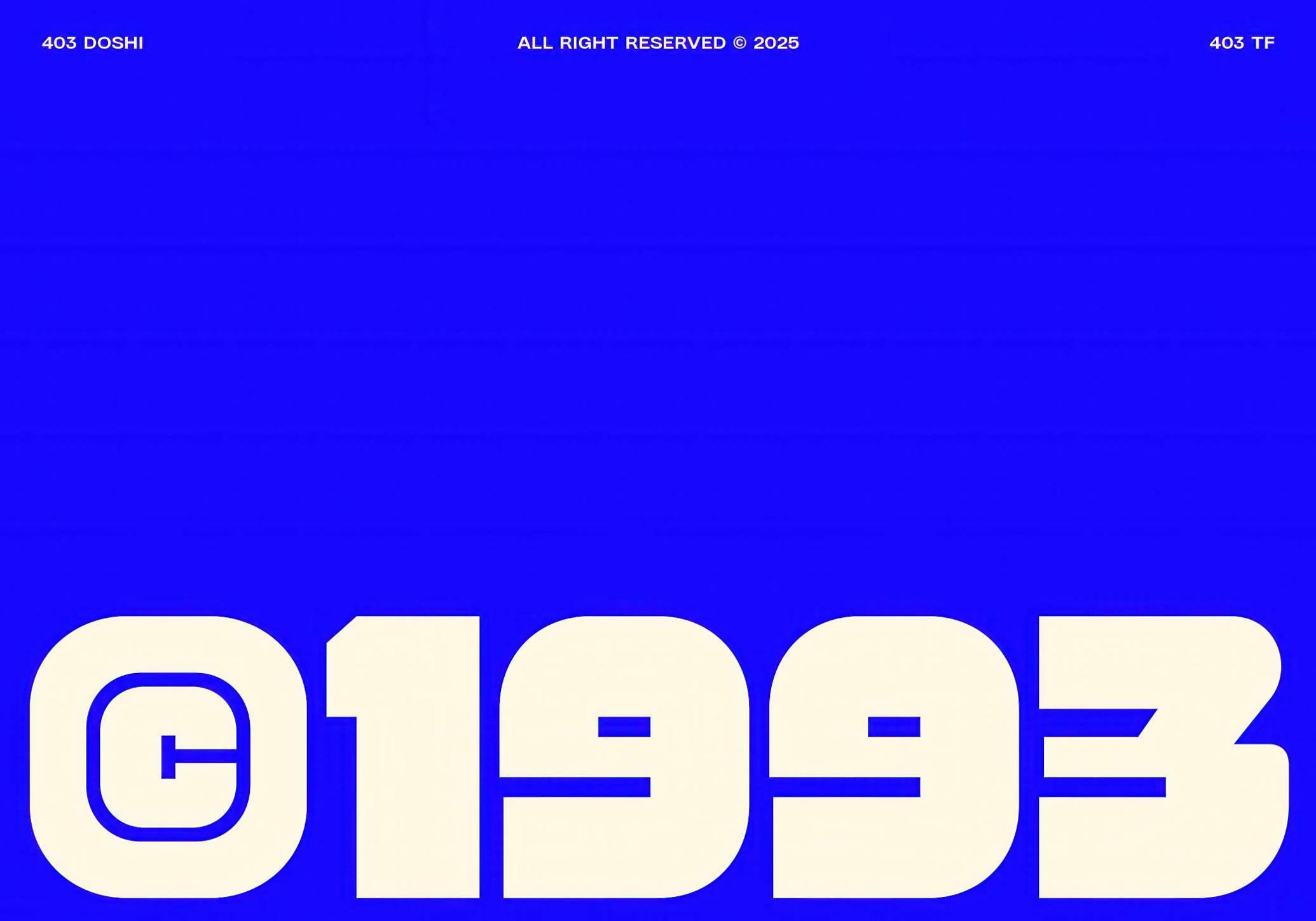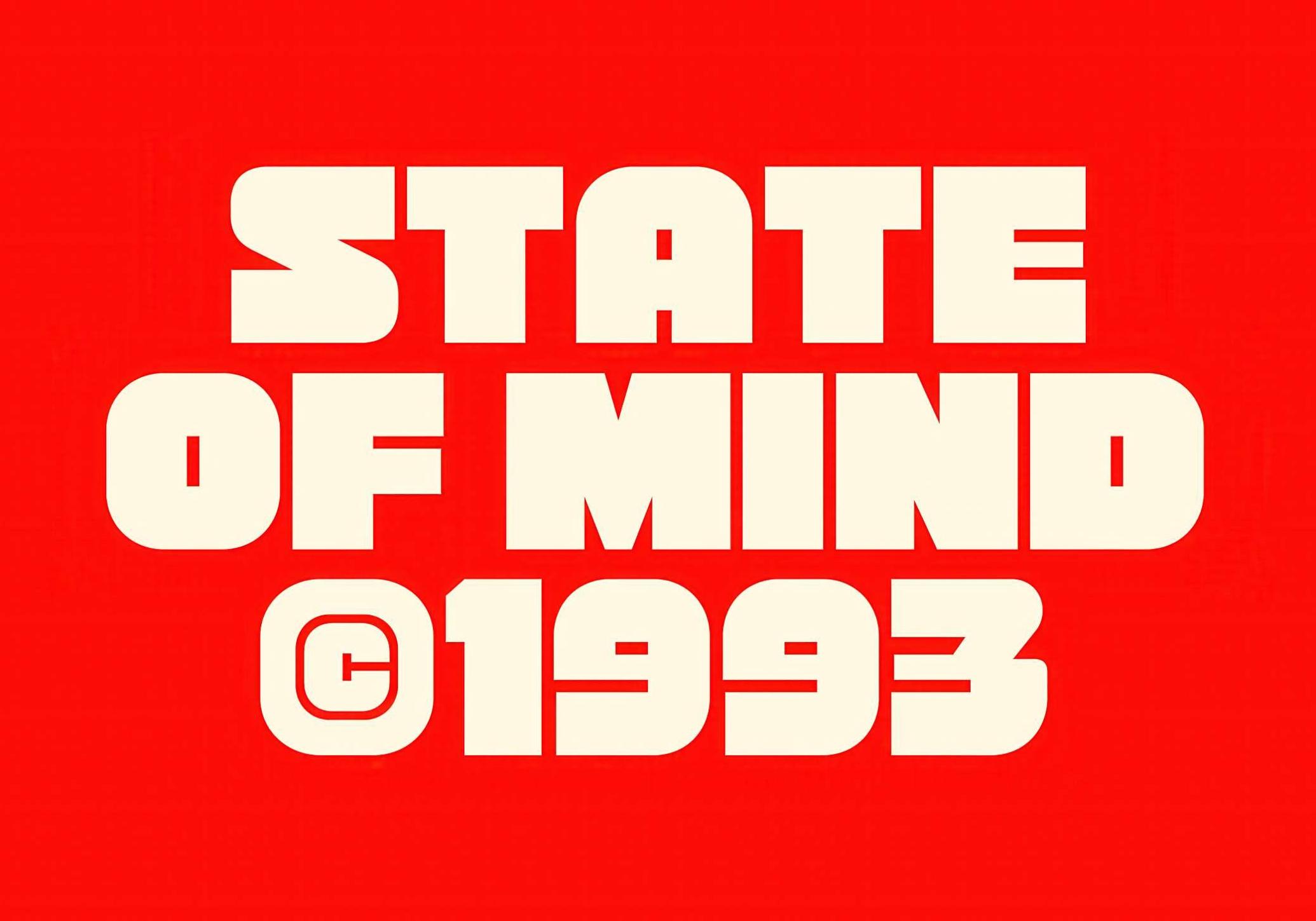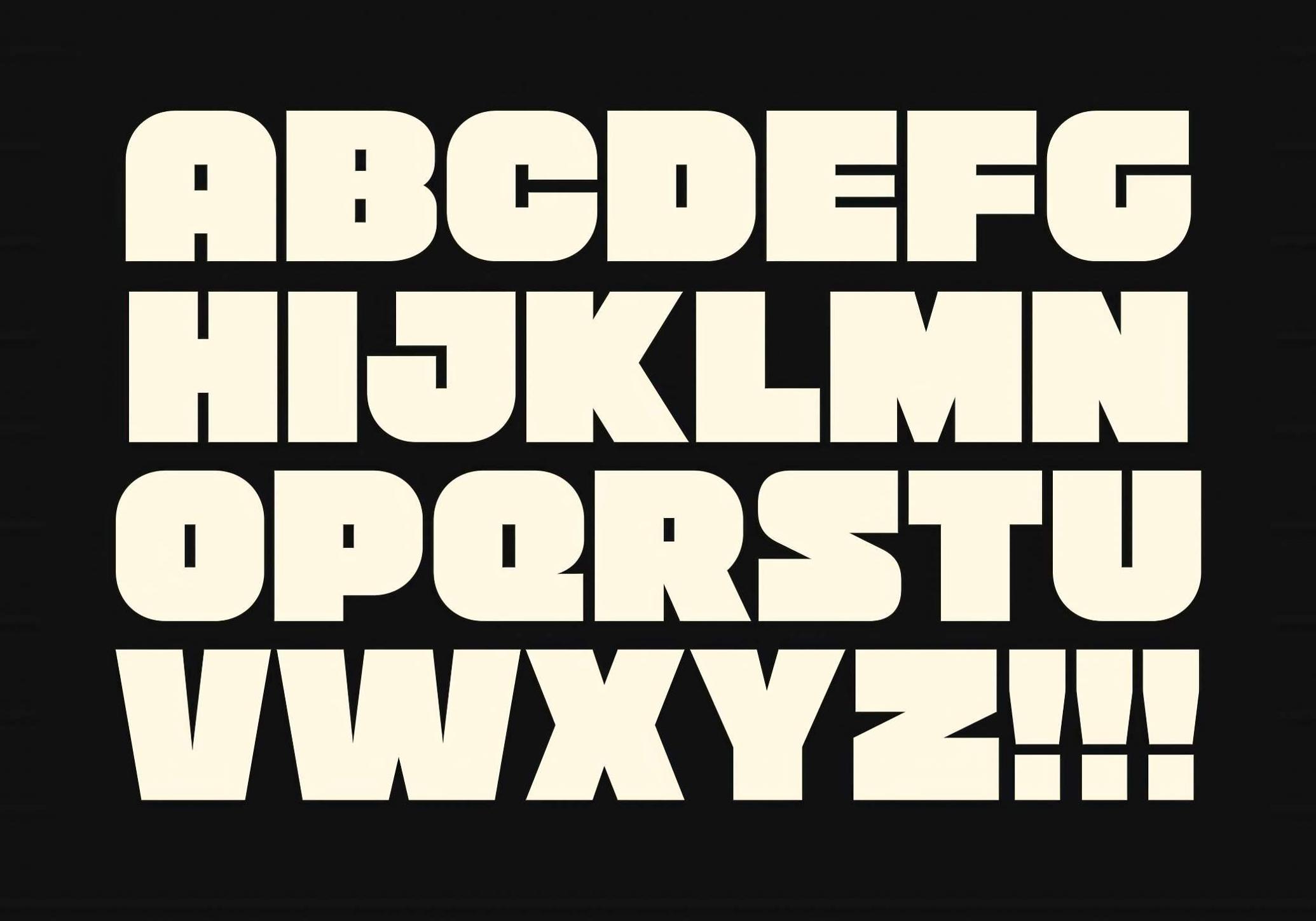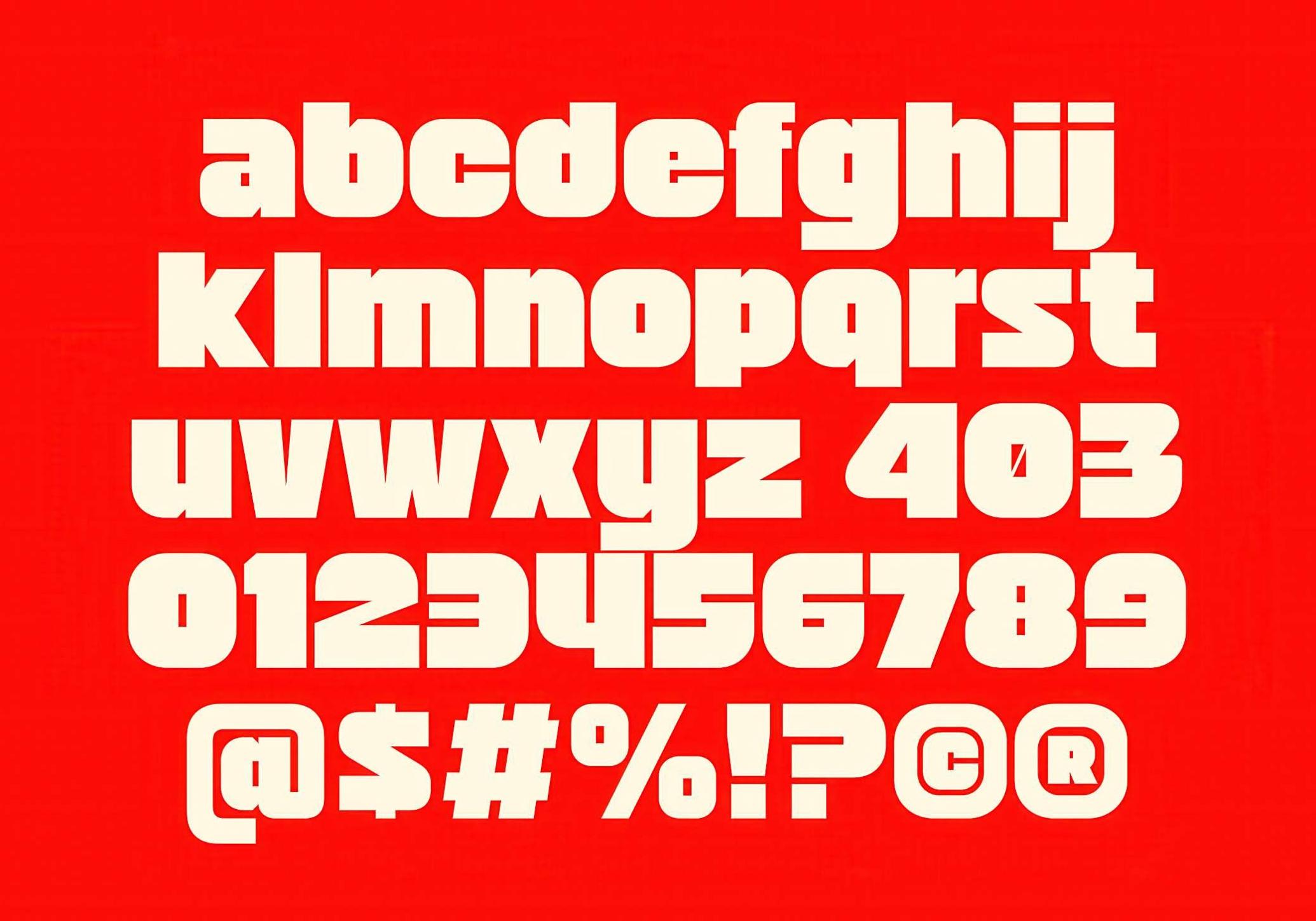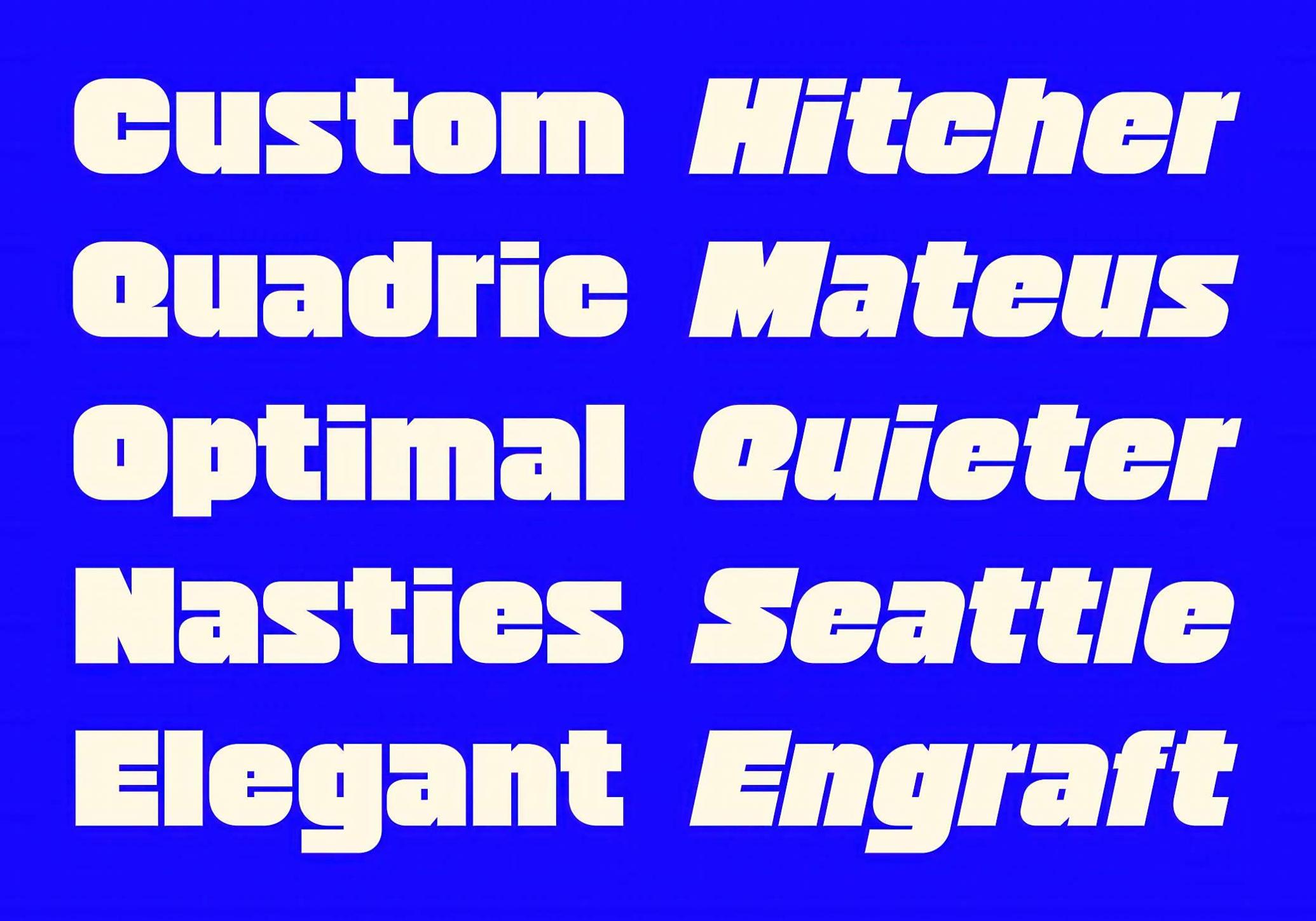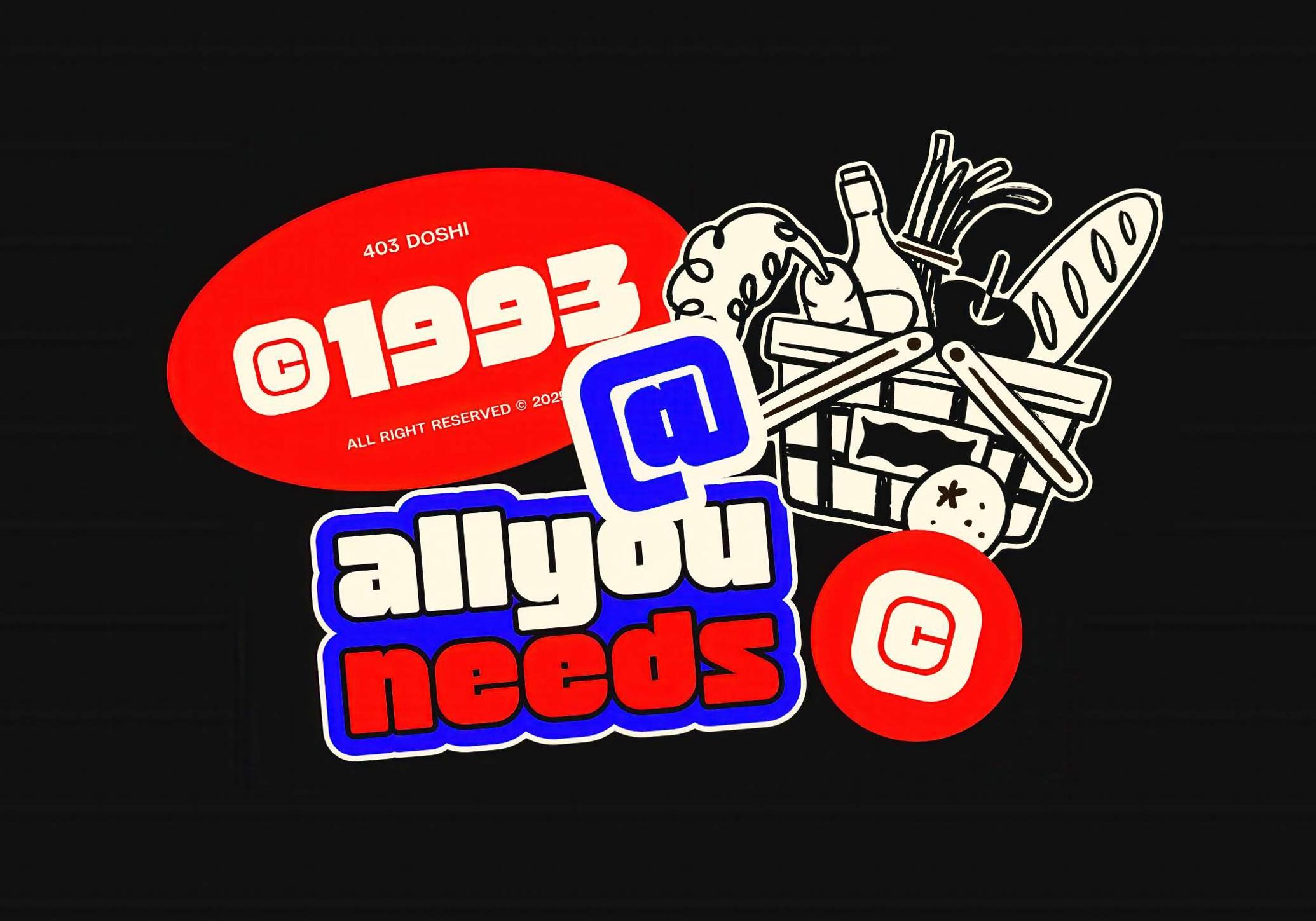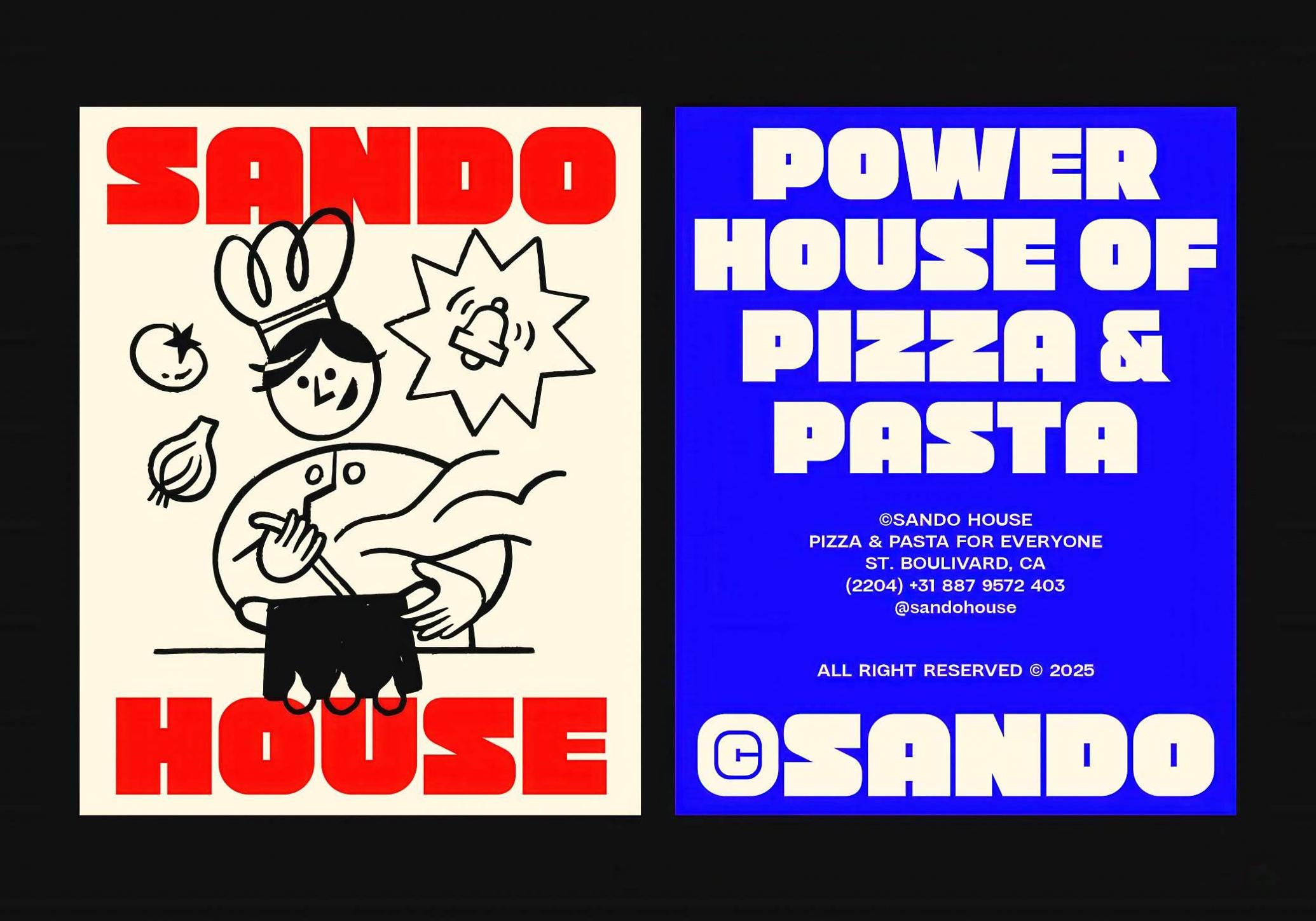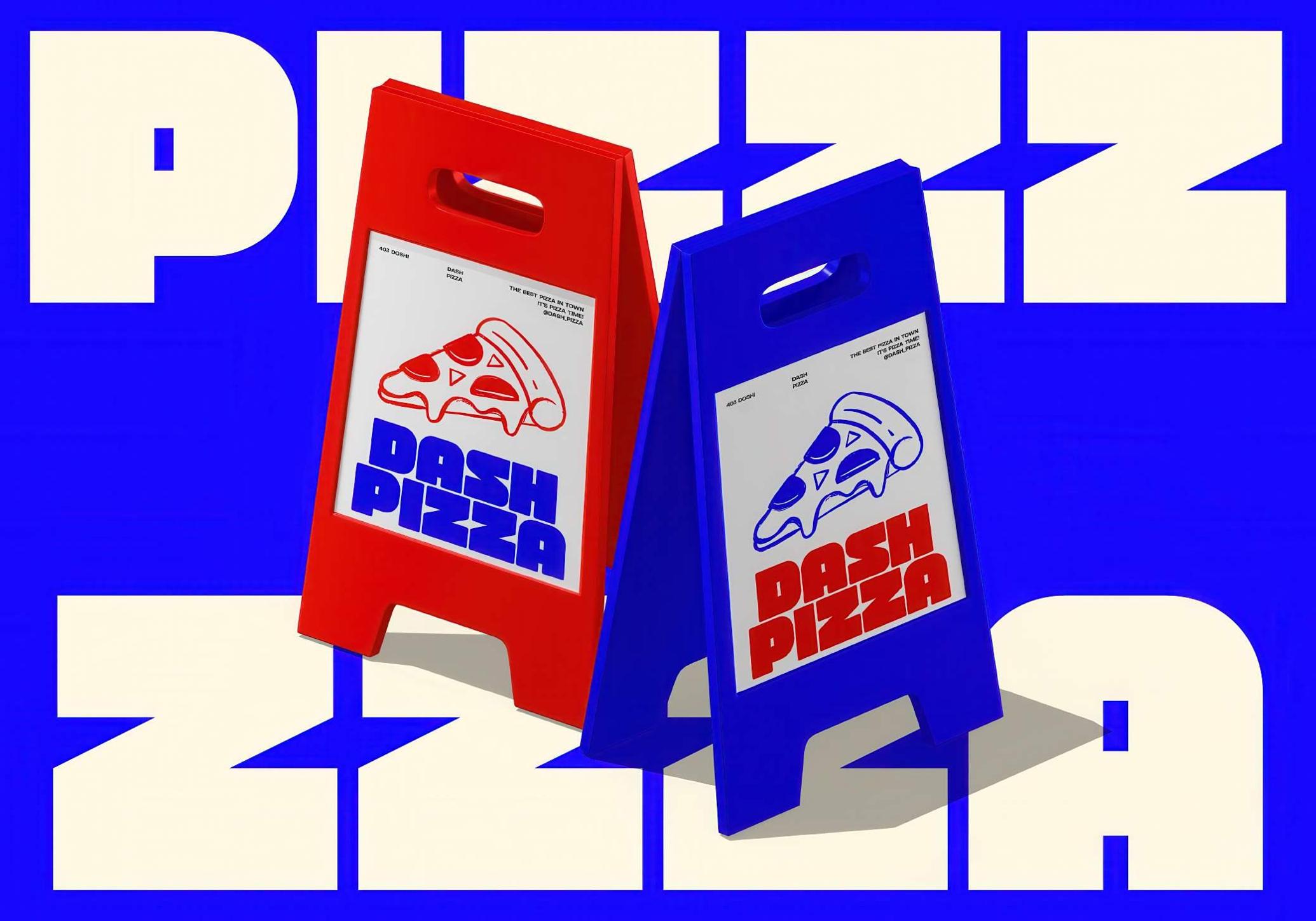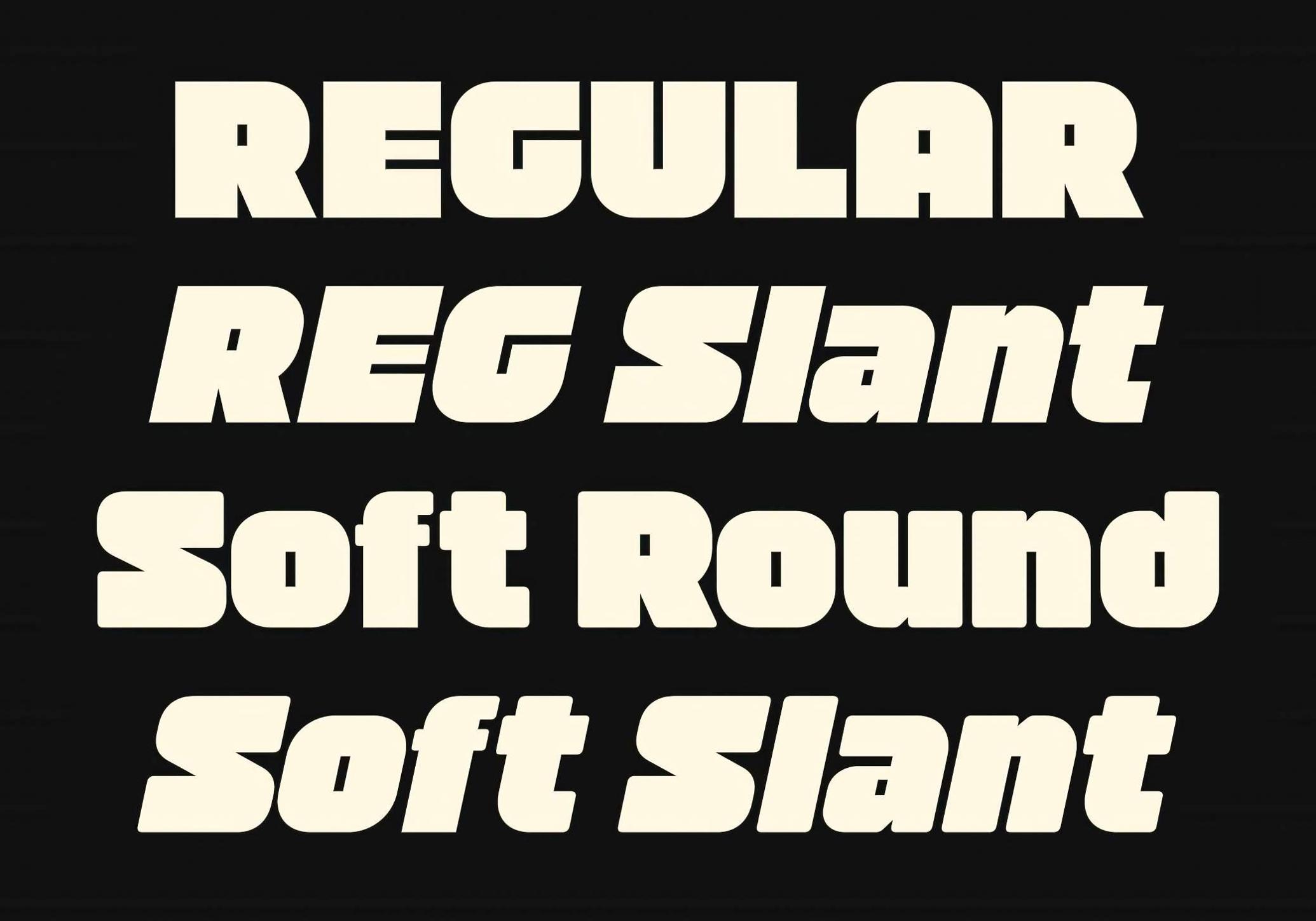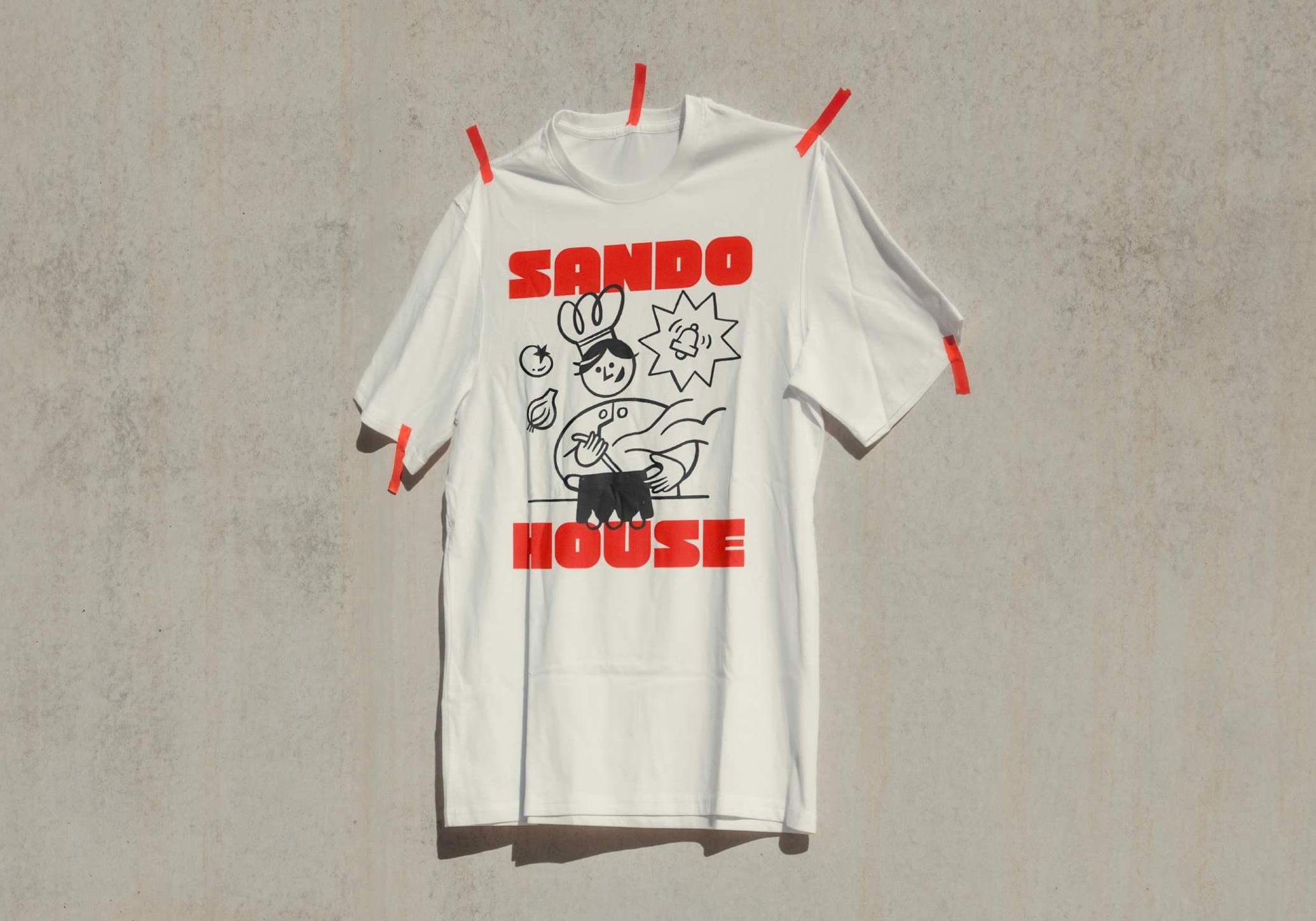
403 Doshi
Built like a headline-hungry block and styled with a vintage heart, 403 Doshi brings retro-futuristic weight to the latest wave of Behance-ready branding. Its squared curves and brutalist silhouette embrace poster energy from the ‘70s and ‘90s. At the same time, the modular glyph set is engineered for modern design systems — social templates, fast food packs, streetwear drops, and visual identities.
Each of the four styles — Regular, Soft, Slanted, and Soft Slant — adds a new layer of flexibility, letting you match the vibe, whether it’s playful, confrontational, or quietly confident. With over 400 glyphs per style and multilingual support, 403 Doshi shouts in 275 languages.